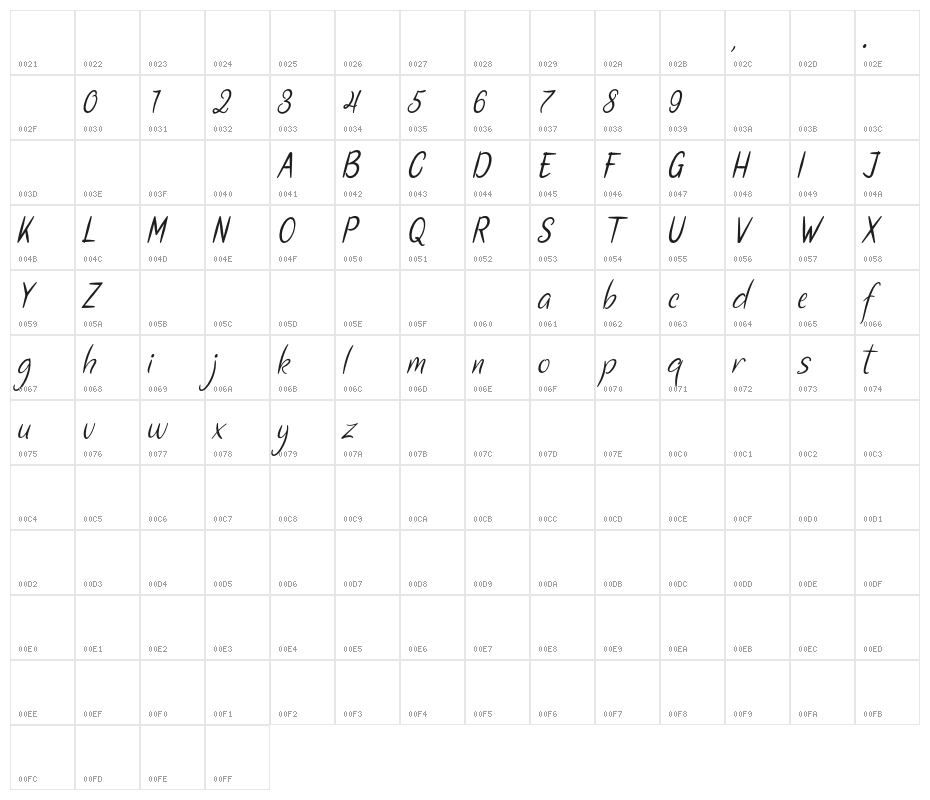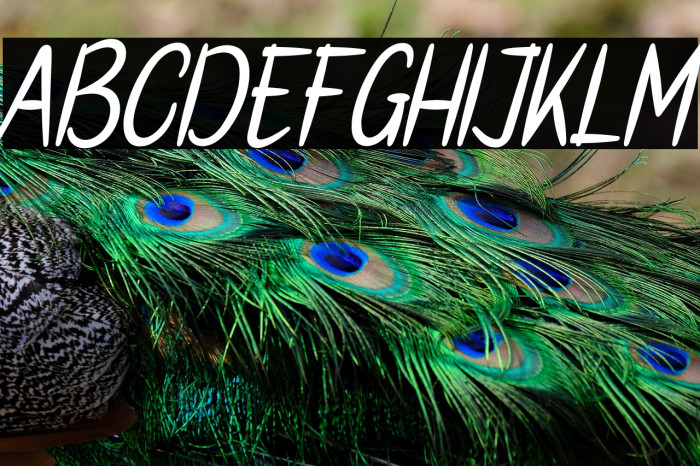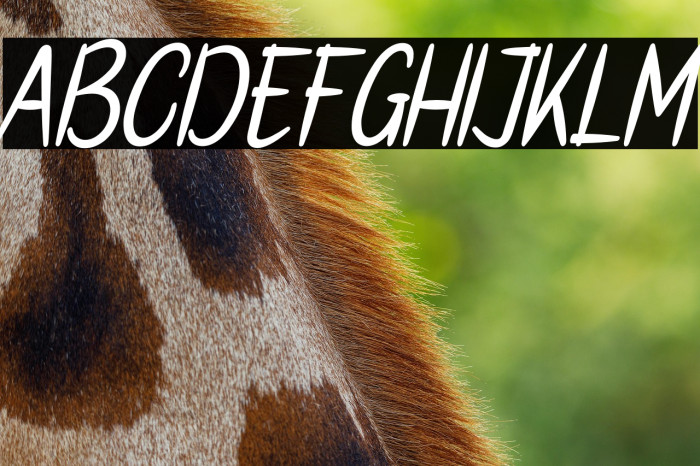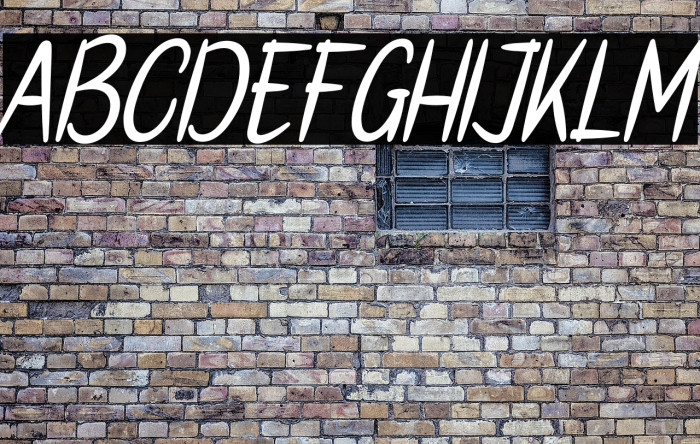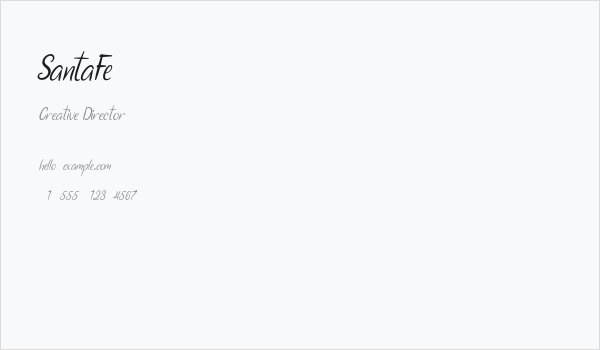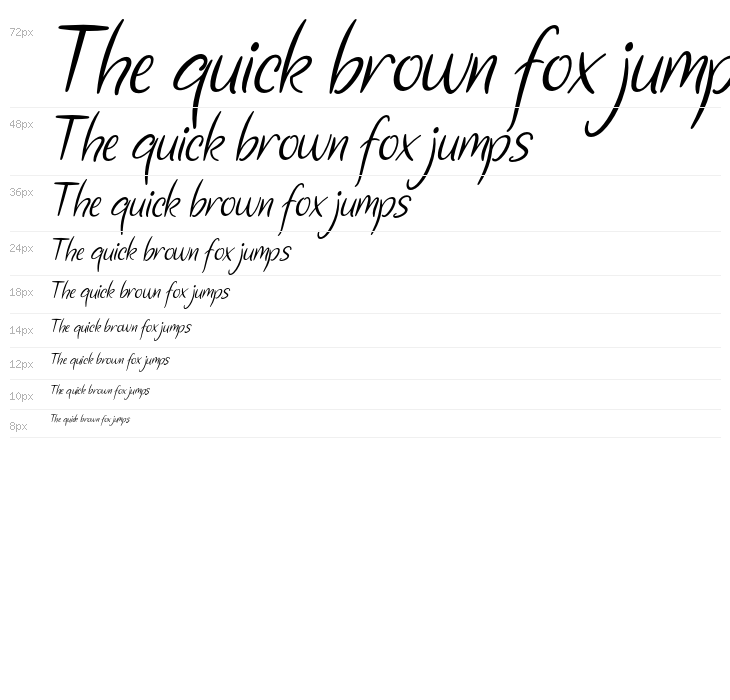
SantaFe Font
SantaFe Description
This font exudes a lively and dynamic character with its handwritten style, featuring a playful yet elegant appearance. The letters are slightly slanted, giving a sense of motion and fluidity. The strokes vary in thickness, adding a natural and organic feel to the text. The uppercase letters are bold and prominent, while the lowercase letters maintain a consistent flow, enhancing readability. The numerals are distinct and well-balanced, complementing the overall aesthetic. Special characters are thoughtfully designed, maintaining the cohesive style of the font. This font is ideal for projects that require a personal touch or a creative flair.